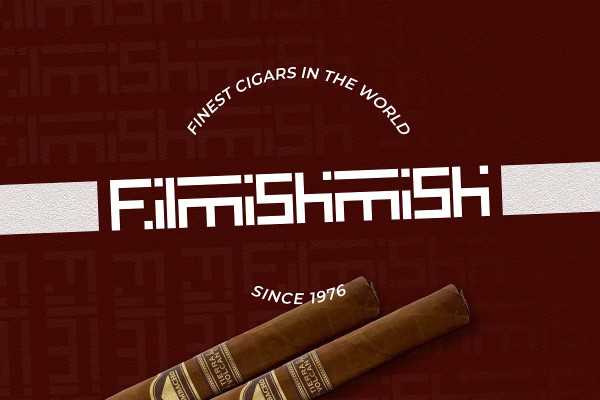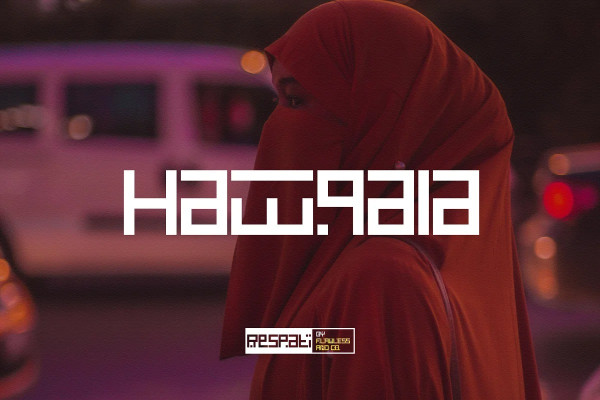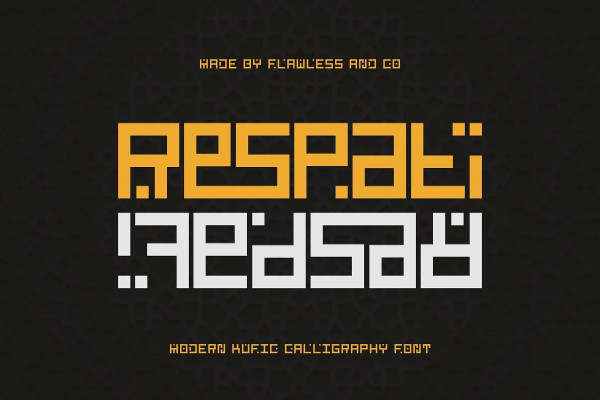
Respati Futuristic Font
Respati Futuristic Font is a Modern Font with an Elegant Style, perfect for branding, logos, invitations, key heads, and more.